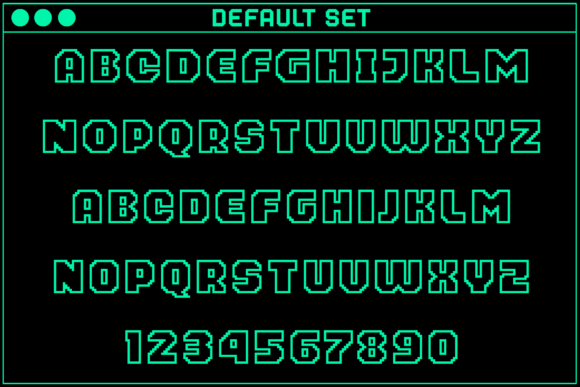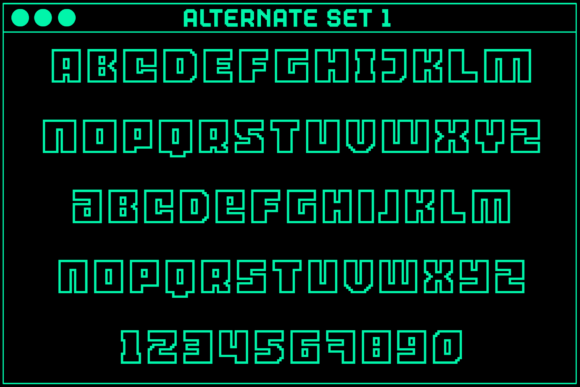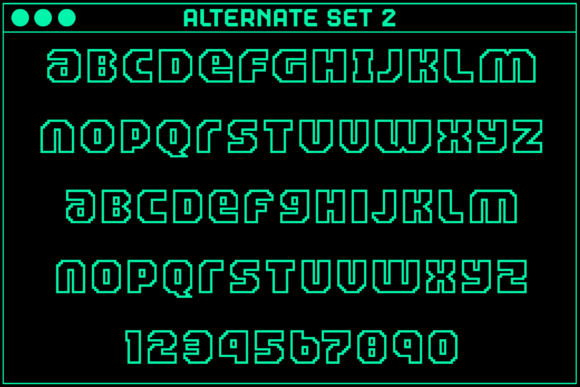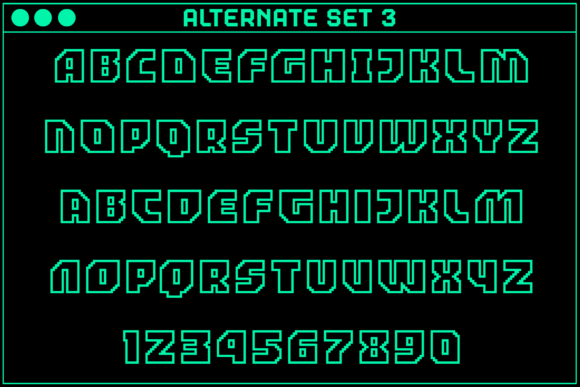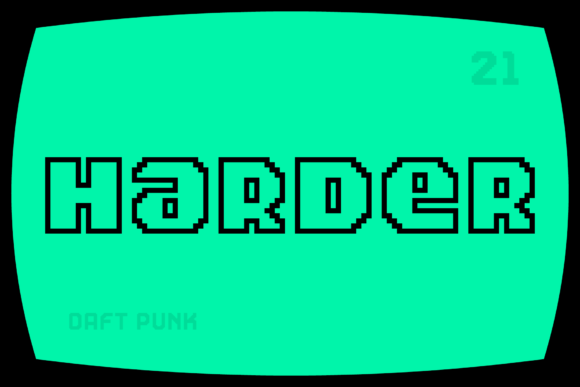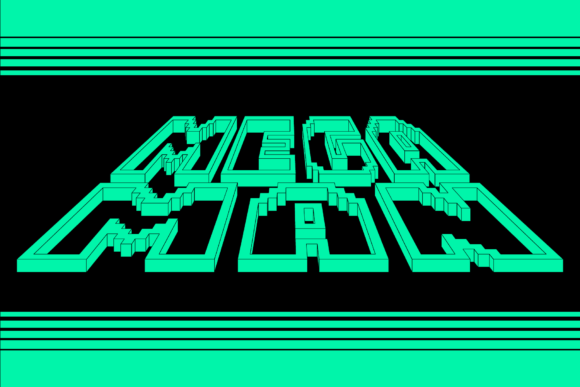
The Pixelated Perfection of the Arcade Font
Who hasn’t experienced that thrill of discovering a hidden level in their favorite childhood game? The rush of excitement as you unlock new worlds and characters is a feeling that never truly fades. For designers, that same thrill comes from finding the perfect font to elevate their projects.
Enter the Arcade Font, a cool, uniquely shaped, pixelated display font that adds a distorted and trendy touch to all your designs. This quirky font is more than just a novelty – it’s a valuable tool for designers looking to add some visual interest to their work. With its PUA encoding, accessing all glyphs and swashes is a breeze, giving you the freedom to get creative and push the boundaries of your designs.
Arcade Font Key Features
- Font Family: Arcade Font is a pixelated, sans-serif font family.
- Size: The font comes in a range of sizes, from 8-point to 64-point.
- Resolution: Designed for low-resolution displays, such as those found in classic arcade games.
- Unique Characteristics: Arcade Font features a distinctive pixelated aesthetic, with bold lines and geometric shapes.
- Compatibility: Suitable for use in graphic design, digital art, and video game development.
Designer Review: Arcade Font
Overall, I think the Arcade Font is a solid choice for retro-themed designs. The font has a distinctive, pixelated look that’s reminiscent of classic arcade games. Here are some things that I think work well:
- ✨ The font’s bold, chunky lines really pop on the screen.
- ✨ It’s easy to read, even at small font sizes.
- ✨ The font comes in a range of weights, from light to bold.
- ✨ It’s highly customizable, with options for color, size, and spacing.
However, there are some limitations to keep in mind:
- ⚠️ The font may not be suitable for all types of text. Its pixelated look can be overwhelming for large blocks of text.
- ⚠️ The font may not render correctly on all devices or platforms.
- ⚠️ Some users may find the font’s bold lines to be too jarring or unpleasant to look at.
Overall, I think the Arcade Font is a great choice for designers who are looking for a retro vibe. It’s easy to use, highly customizable, and looks great on screen. However, it’s not a one-size-fits-all solution, and designers should be aware of its limitations before using it.
The Arcade Font is ideal for retro-themed designs, video games, and nostalgic graphics.
Use it to add a touch of classic charm to your designs, and experiment with different font sizes and styles to create a unique look.
Remember to pair the Arcade Font with other fonts and graphics to create a visually appealing design.
Creating with Arcade Font
Project 1: Retro Arcade Poster
Create a vibrant and eye-catching poster design that captures the essence of classic arcade games. Use Arcade Font to give it a retro feel.